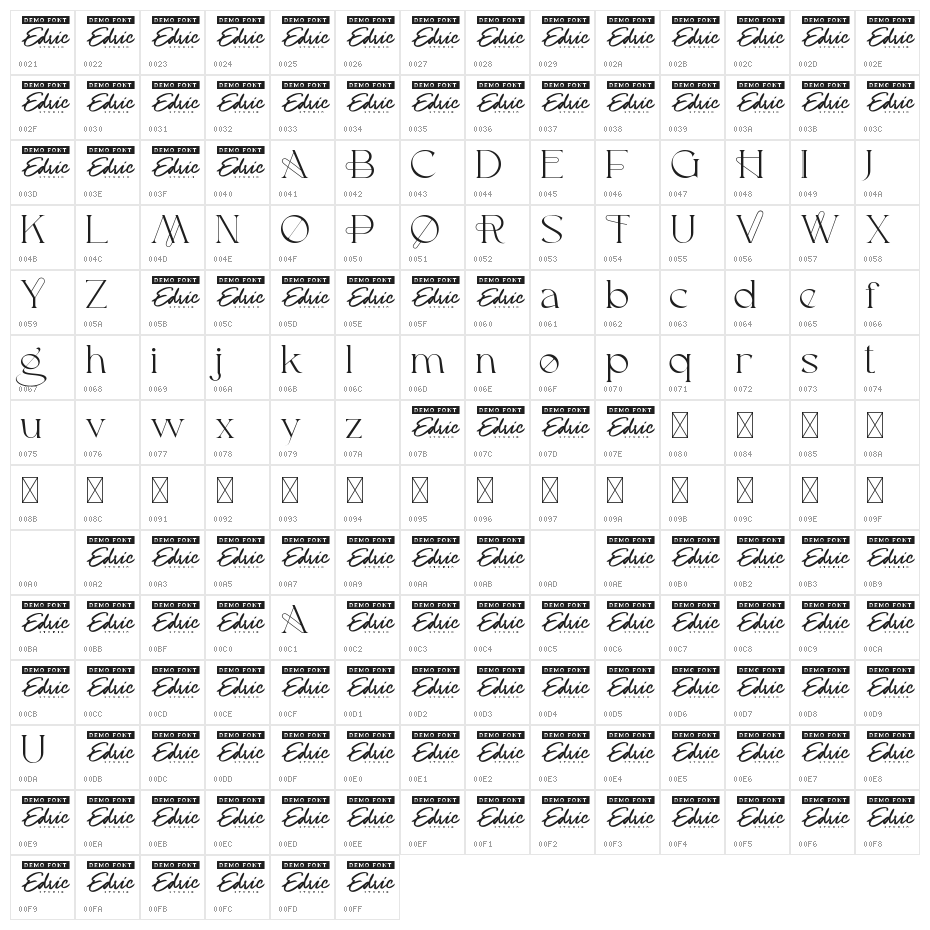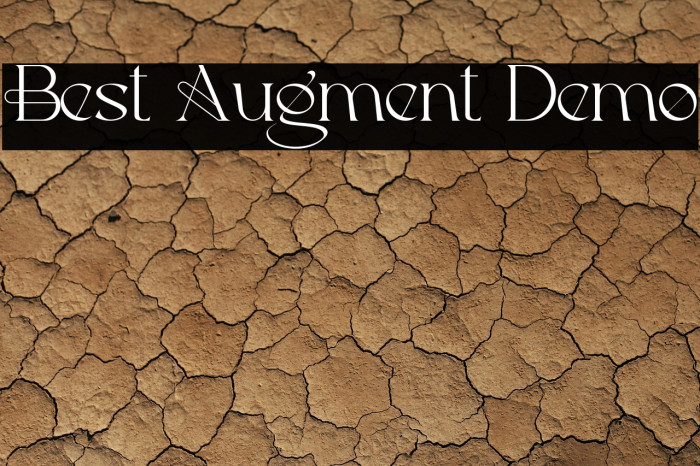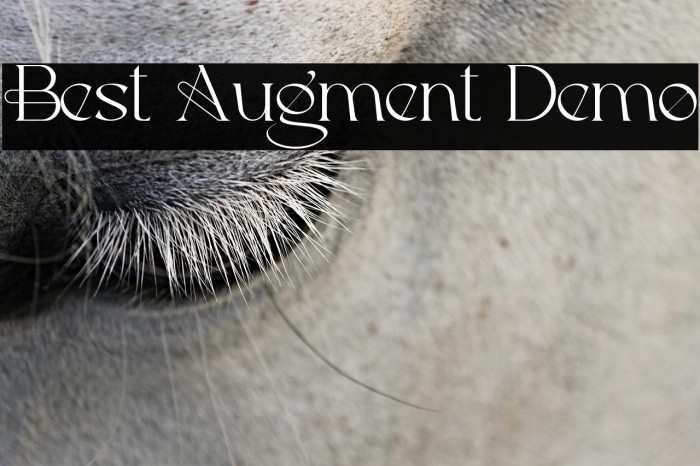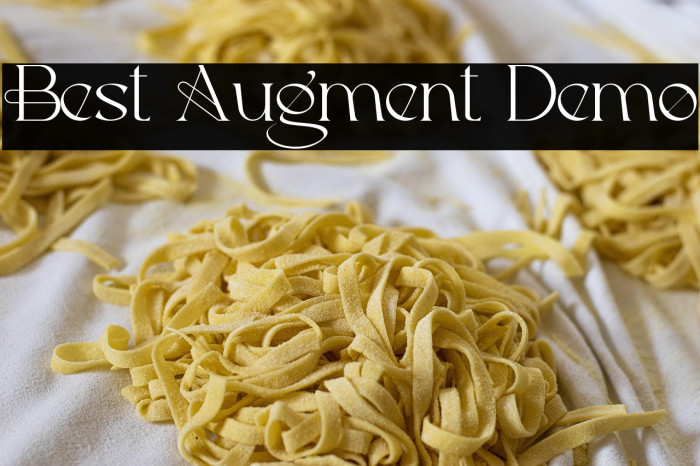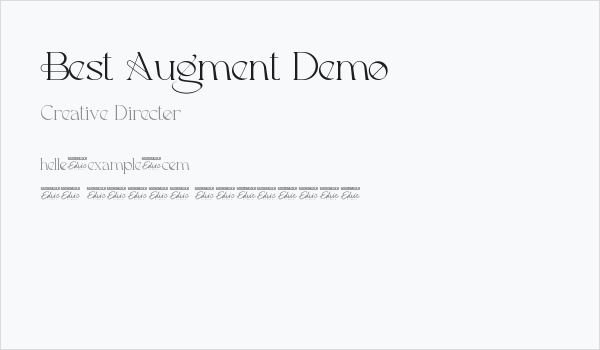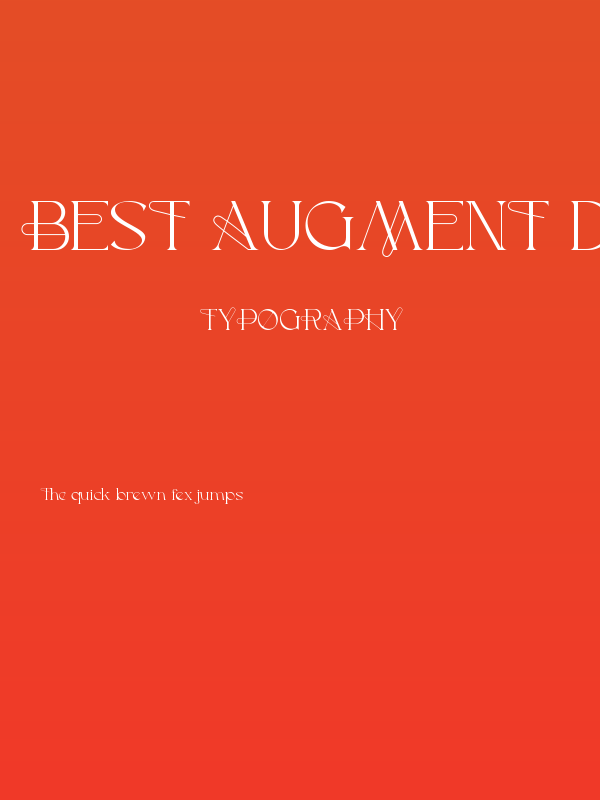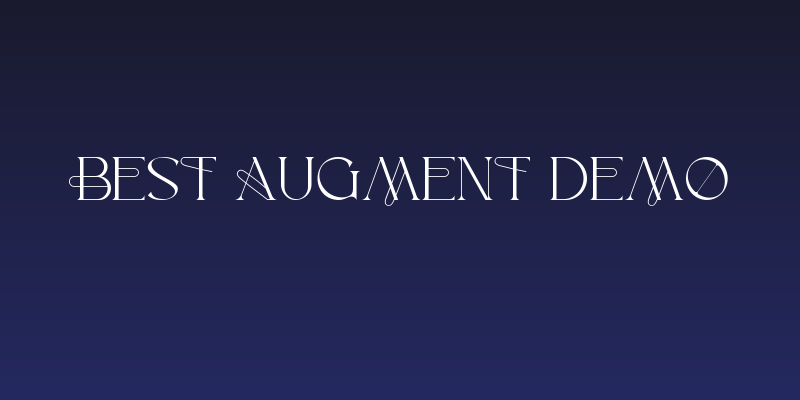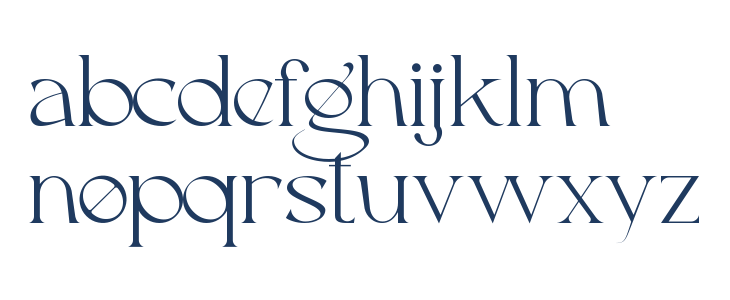
Best Augment Demo Font
Best Augment Demo Description
This font features a unique blend of modern and classic elements, characterized by its elegant and sophisticated design. The uppercase letters exhibit a distinct style with elongated strokes and subtle curves, creating a sense of movement and fluidity. The lowercase letters maintain a harmonious balance with a slightly more rounded appearance, enhancing readability while preserving the font's artistic flair. The numerals are consistent with the overall design, offering a sleek and contemporary look. Special characters are thoughtfully integrated, maintaining the font's cohesive aesthetic. This font's intricate details and refined style make it suitable for a variety of creative applications.
| Overall Style | Elegant and sophisticated |